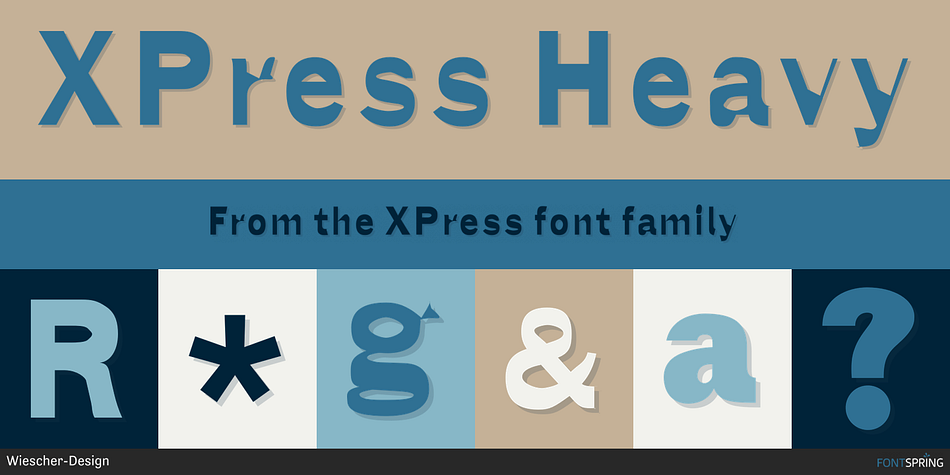
XPress Heavy
Designed by Gert Wiescher, XPress is a sans serif font family. This typeface has fourteen styles and was published by Wiescher-Design.
XPress is a very distinct, expressive, typical new Sans. XPress is my new Sans-Serif that impresses – especially in small sizes – with its outstanding readability.
Seven precisely calibrated weights from Thin to Heavy and its corresponding italics make this font-family universally usable. XPress got its bearings from the fabulous American Gothic fonts of the twenties of last century.
Modern, present day elements, high lowercase letters and infinitesimal elegant slight curves in start- and end strokes make the font family not only great for body copy, but also very useful in advertising.
XPress ist eine individuelle, expressive, typische neue Sans. XPress ist meine neue Serifenlose die – speziell in kleinen Schriftgraden – durch aussergewöhnliche Lesbarkeit auffällt.
Sieben präzise aufeinander abgestimmte Schnitte von Thin bis Heavy und dazu passende Kursive machen die Schriftfamilie vielseitig einsatzfähig. XPress orientiert sich bewusst an den grossen amerikanischen Groteskschriften der zwanziger Jahre des letzten Jahrhunderts.
Durch moderne Formelemente, große Mittellängen und unendlich leichte, elegante An- und Abstriche ist die Schrift jedoch nicht nur als Textschrift, sondern auch im gesamten Bereich der Werbung vielseitig einsetzbar.